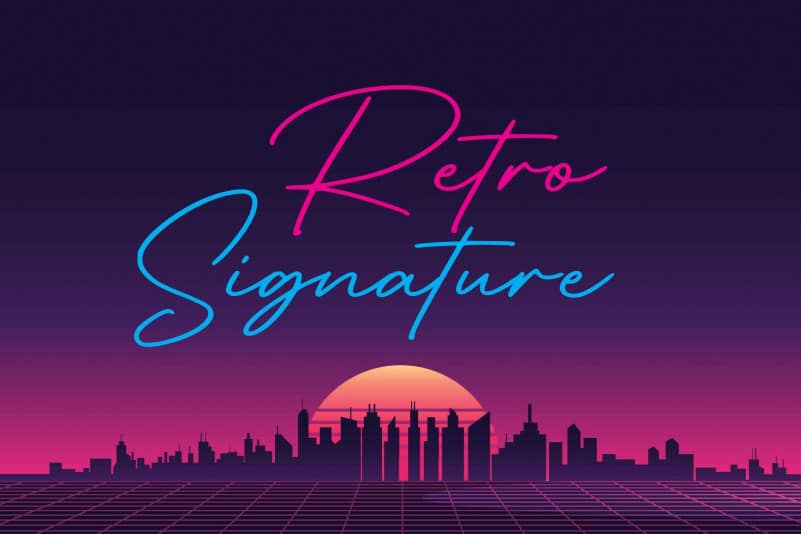
Retro Signature Font
Introducing Retro Signature Font – is handwriting font, every single glyph create by handmade. It’s includes full set of charming uppercase and lowercase international letters, numerals, and giving realistic hand-lettered style. A classy, contemporary of script font, inspired by 1980’s and neon lights. Retro Signature offers beautiful typographic harmony for a diversity of design projects, including logos & branding, social media posts, advertisements & product designs.